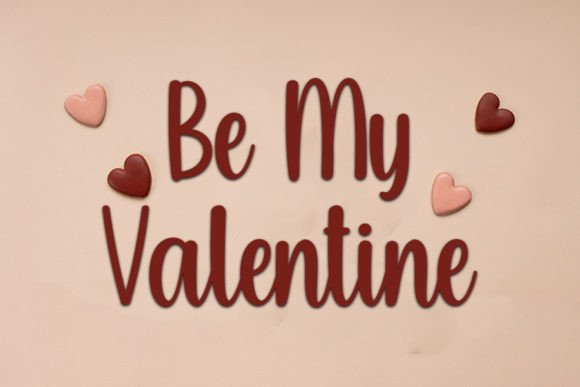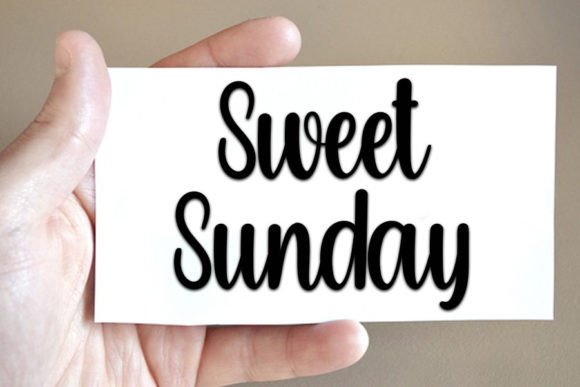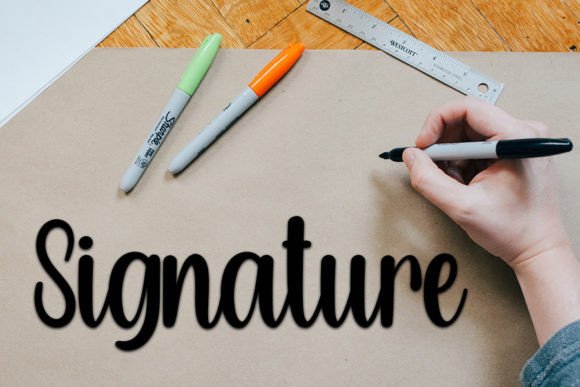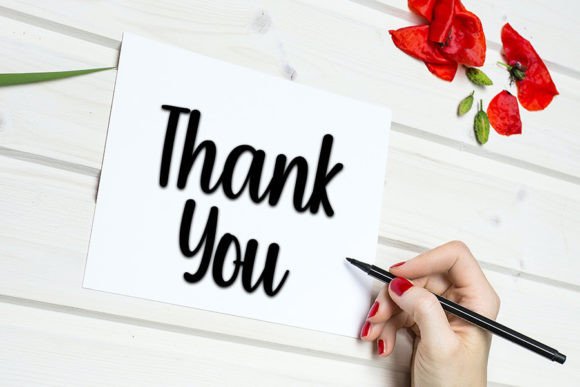
Biscuits Font: The Perfect Addition to Your Design Collection
Are you on the lookout for a font that exudes elegance and sophistication? Look no further than the Biscuits Font! This stunning handwritten font is sure to capture your heart with its unique and timeless style. In this article, we’ll dive into the world of Biscuits Font and explore its features, uses, and benefits for designers and crafters alike.
What is Biscuits Font?
Biscuits Font is a beautiful, handwritten font that boasts an elegant touch. Its distinct and classic style makes it perfect for a wide range of projects, from branding and advertising to packaging and digital media. The font’s unique characteristics are sure to make your designs stand out from the crowd and leave a lasting impression on your audience.
Key Features of Biscuits Font
- Handwritten style: Biscuits Font features a beautiful, handwritten style that’s perfect for adding a personal touch to your designs.
- Elegant touch: The font’s elegant touch makes it suitable for a wide range of projects, from luxury brands to wedding designs.
- Distinct and timeless style: Biscuits Font’s unique style is sure to make your designs stand out and leave a lasting impression on your audience.
- High-quality design: The font is carefully crafted to ensure that it’s legible and visually appealing.
Uses of Biscuits Font
Biscuits Font is a versatile font that can be used for a wide range of projects, including:
- Branding and advertising: Use Biscuits Font to create stunning logos, advertisements, and marketing materials that exude elegance and sophistication.
- Packaging design: Add a touch of elegance to your packaging designs with Biscuits Font, perfect for luxury brands and high-end products.
- Digital media: Use Biscuits Font to create engaging digital content, such as social media graphics, blog posts, and email newsletters.
- Wedding designs: Biscuits Font is perfect for wedding designs, including invitations, save-the-date cards, and wedding stationery.
Benefits of Using Biscuits Font
So, why choose Biscuits Font for your design projects? Here are just a few benefits:
- Unique style: Biscuits Font’s unique style is sure to make your designs stand out from the crowd.
- Elegant and sophisticated: The font’s elegant touch makes it perfect for luxury brands and high-end products.
- Easy to read: Biscuits Font is carefully crafted to ensure that it’s legible and easy to read.
- Versatile: The font can be used for a wide range of projects, from branding and advertising to packaging and digital media.
Tips for Using Biscuits Font
Here are a few tips for getting the most out of Biscuits Font:
- Use it sparingly: Biscuits Font is a statement font, so use it sparingly to make a lasting impression.
- Pair it with other fonts: Experiment with pairing Biscuits Font with other fonts to create a unique and visually appealing design.
- Adjust the size and color: Play around with different sizes and colors to find the perfect combination for your design.
In conclusion, Biscuits Font is a stunning handwritten font that’s perfect for designers and crafters looking to add a touch of elegance and sophistication to their projects. With its unique and timeless style, Biscuits Font is sure to make your designs stand out from the crowd and leave a lasting impression on your audience. So why wait? Fall in love with Biscuits Font and start creating spectacular designs today!